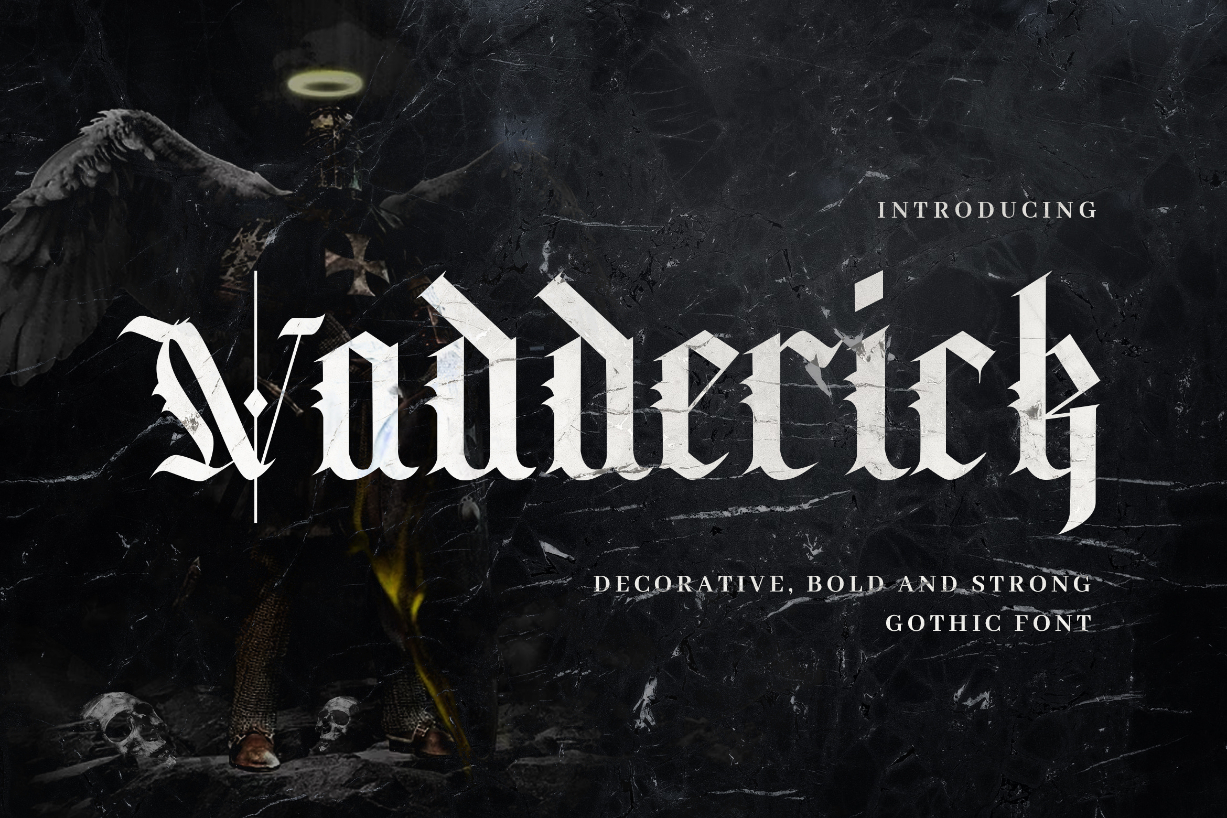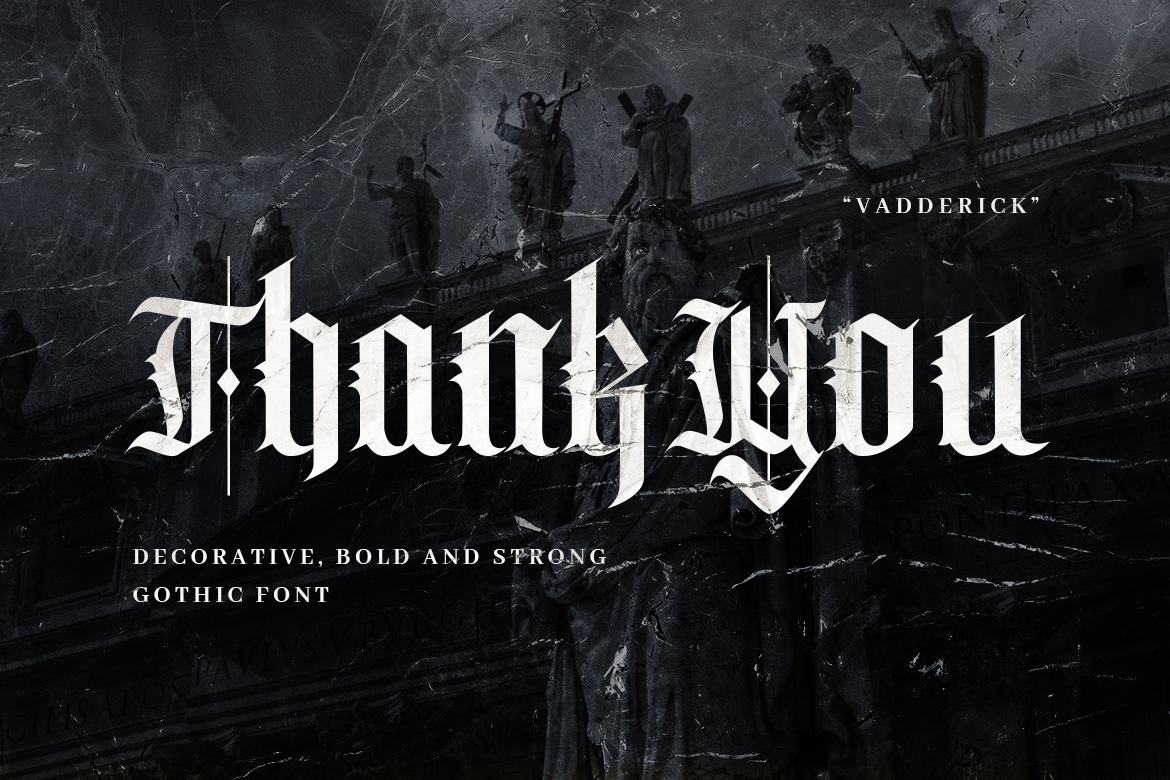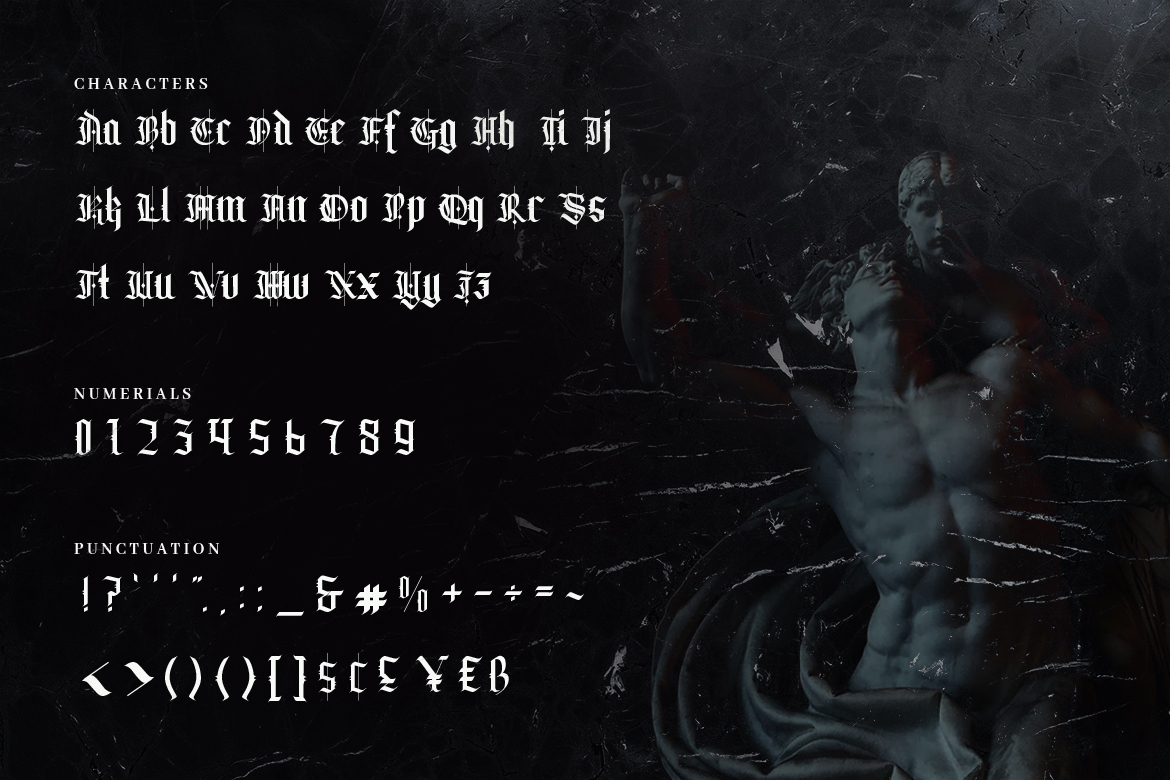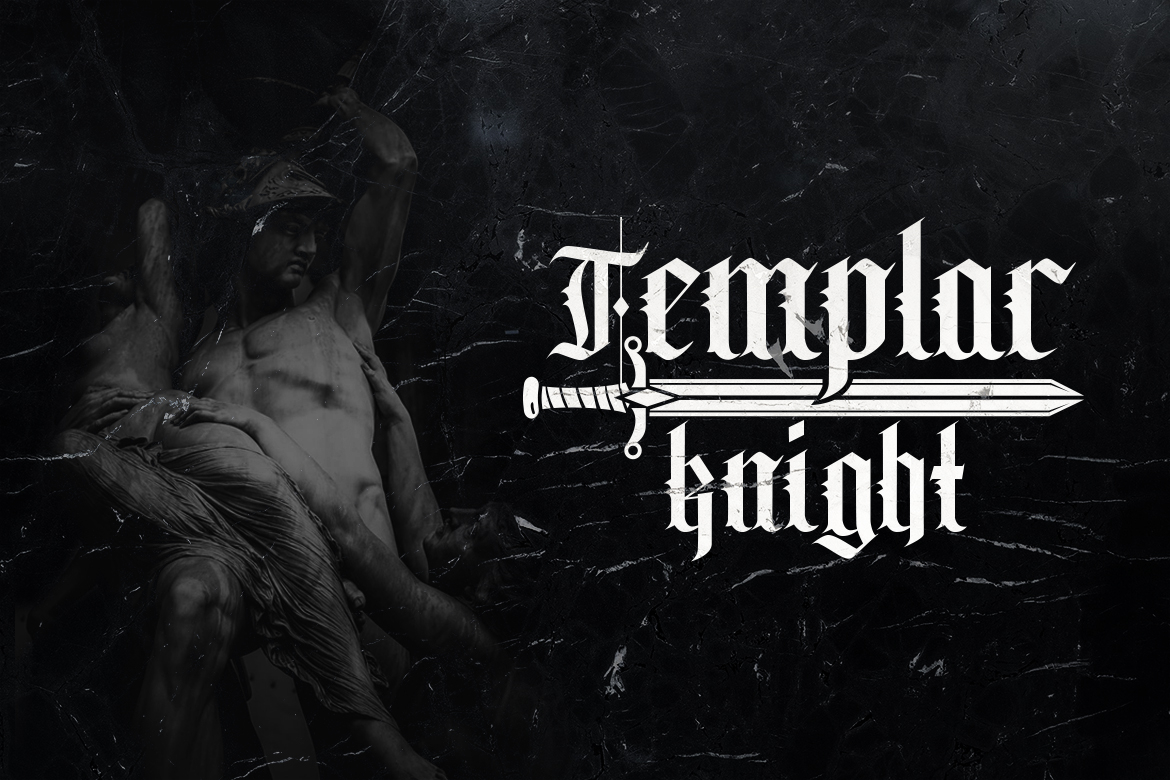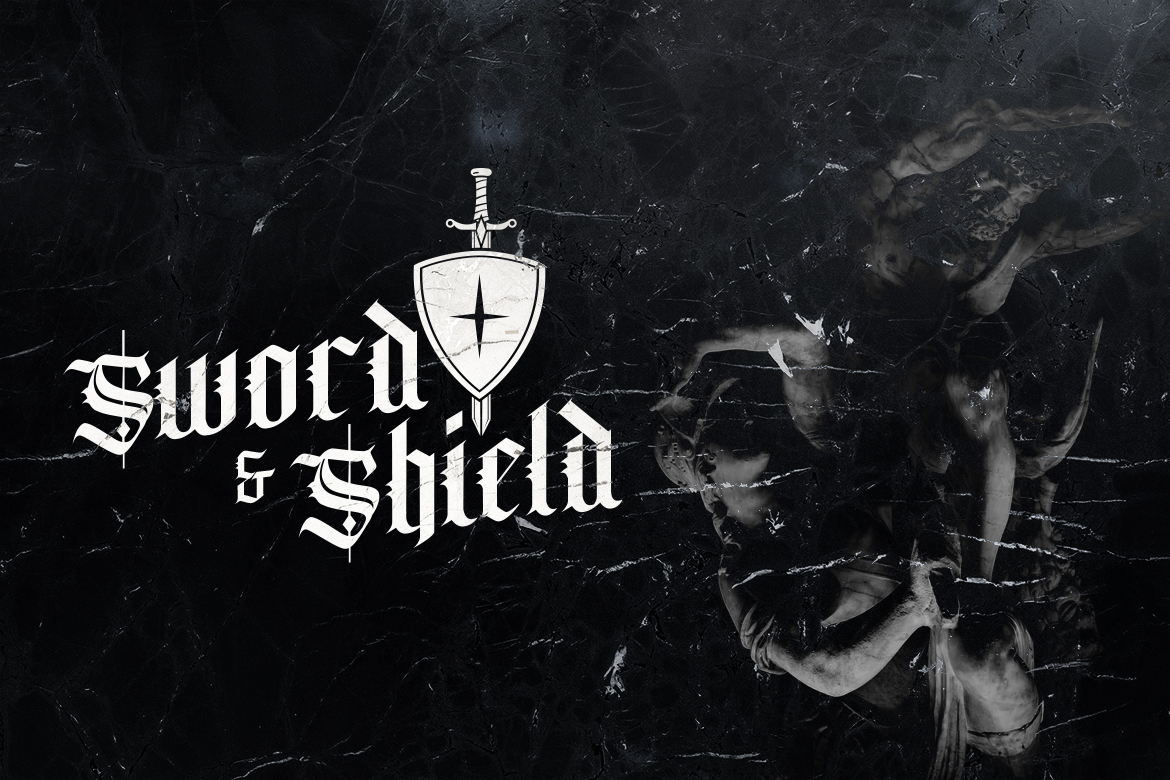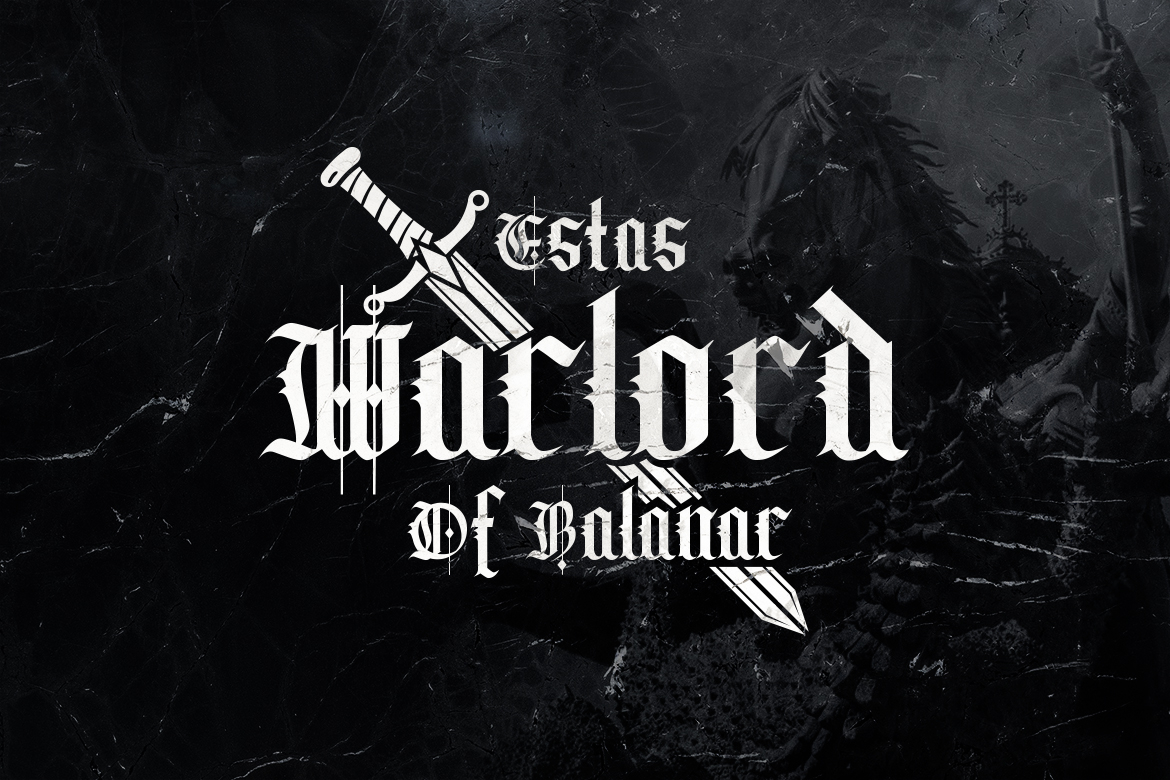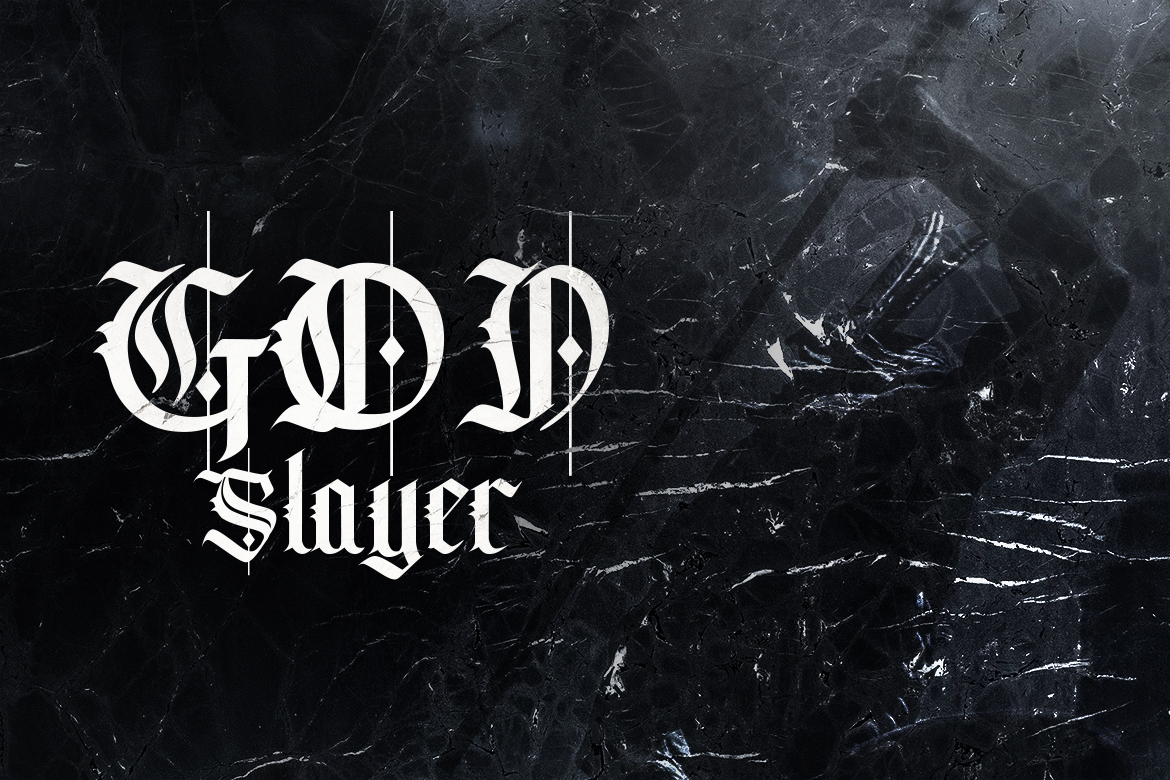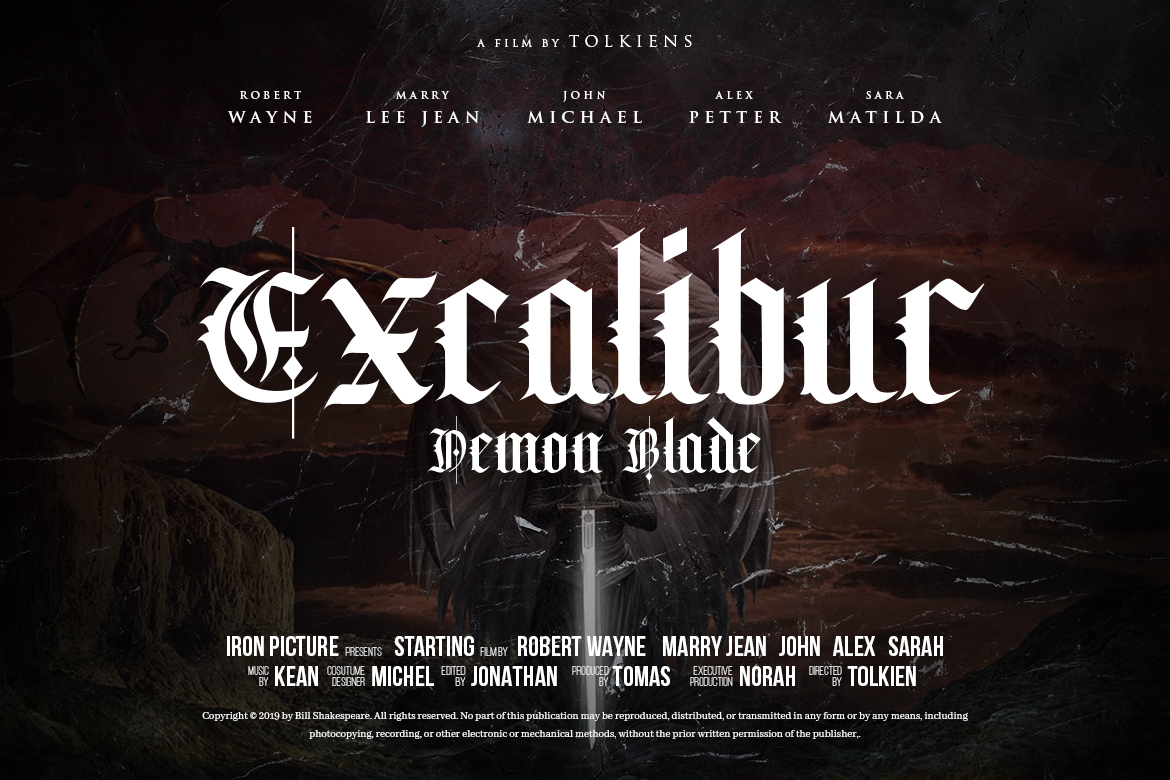
Vadderick Font
About Vadderick Font
Vadderick is a bold blackletter font that has a medieval feeling. It was handcrafted using a calligraphy pen. It is suitable logos, book covers, print, games, flyers, music, invitations and more!